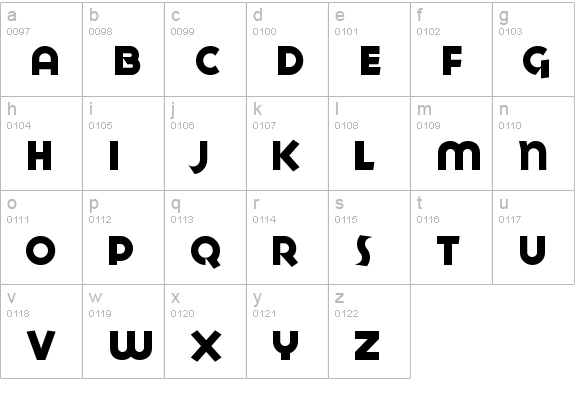
Goya Heavy Font Details
Goya Heavy is a heavy, high-impact variant in the Goya typeface family \xE2\x80\x94 well suited to high-impact headlines, posters, and display advertising.
Goya Heavy is a bold and impactful font that exudes strength and personality. With its thick, robust letterforms and sharp edges, this typeface demands attention and makes a bold statement. Perfect for headlines, logos, and other display purposes, Goya Heavy is sure to leave a lasting impression on any design project. The best part about Goya Heavy is that it is completely free to download at FontsMarket.com. You can easily access this powerful font and incorporate it into your designs without any cost. So why wait? Give your projects a strong and commanding presence with Goya Heavy today!